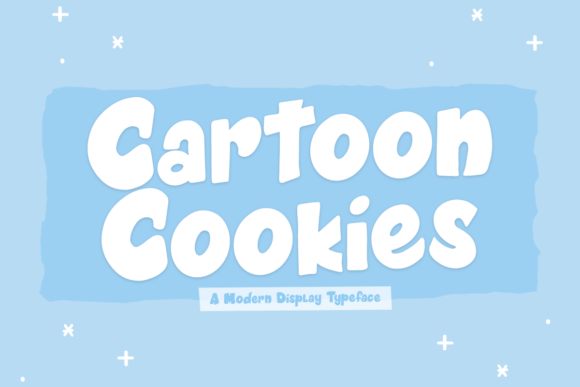
Journey into a world of whimsical delight with Cartoon Cookies Font, a display font that oozes charm and playfulness. Its rounded edges and cheerful demeanor bring a touch of magic to your creative projects, making it the perfect choice for adding a dash of fun and personality to your designs.
Crafted with meticulous attention to detail, Cartoon Cookies Font exudes a unique charm that captivates the hearts of all who encounter it. Its playful curves and cheerful strokes create an irresistible allure, inviting you to explore a realm of creativity where imagination reigns supreme.
Let Cartoon Cookies Font transport you to a world where cookies come alive and dreams take flight. Its enchanting aura will breathe life into your designs, whether you're creating heartfelt invitations, whimsical stationary art, or adorable greeting cards. Unleash the power of imagination and watch as your creations transform into masterpieces of joy.
With Cartoon Cookies Font, you'll discover a font that's as versatile as it is charming. Its playful nature lends itself effortlessly to a myriad of projects, from eye-catching logos and branding elements to captivating social media graphics and website designs. Let your creativity run wild as you explore the endless possibilities that await you.
Immerse yourself in the delightful world of Cartoon Cookies Font and let your imagination soar. Its cheerful disposition and infectious charm will ignite a spark of creativity within you, inspiring you to create designs that radiate joy and captivate hearts. Embrace the magic of this extraordinary font and embark on a creative adventure that will leave you spellbound.